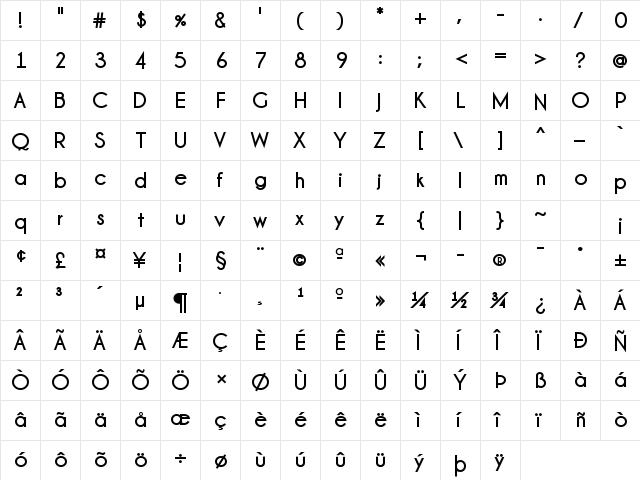
Champagne & Limousines Thick Regular
Design Context for Champagne & Limousines Thick Typeface
Champagne & Limousines Thick takes a measured approach to typography — its balanced proportions and neutral character make it a reliable workhorse for both digital and print work.
Pro Tip: Pair Champagne & Limousines Thick with a font of contrasting weight or personality to build a more expressive typographic hierarchy.